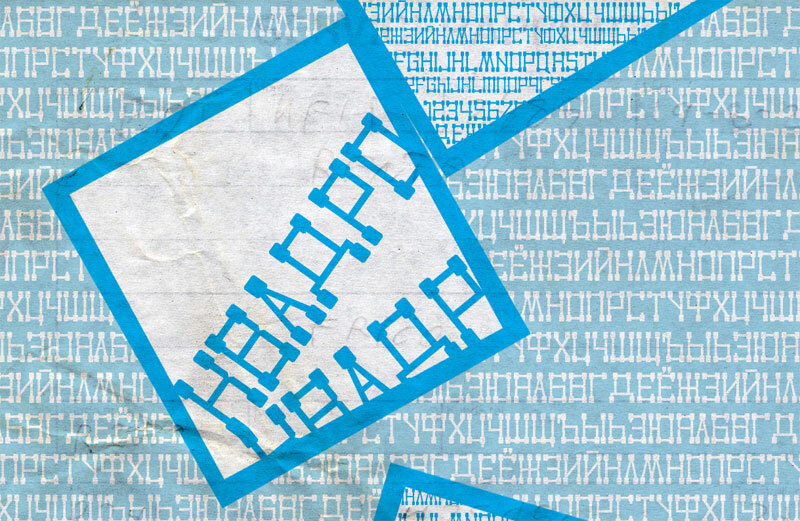
Kvadro-Random by Mr. Frukta is a free hand-drawn display font built from thin, visibly uneven strokes and solid blunt block-like ends. Its tall, angular letters look assembled from sticks or rough-cut wooden pieces, with shifting widths and deliberately awkward joins.
It suits offbeat music and game branding. The improvised construction also fits craft packaging, festival posters, and theatrical event graphics. In editorial design it can turn a cover line or section opener into part of the illustration rather than neutral typography.